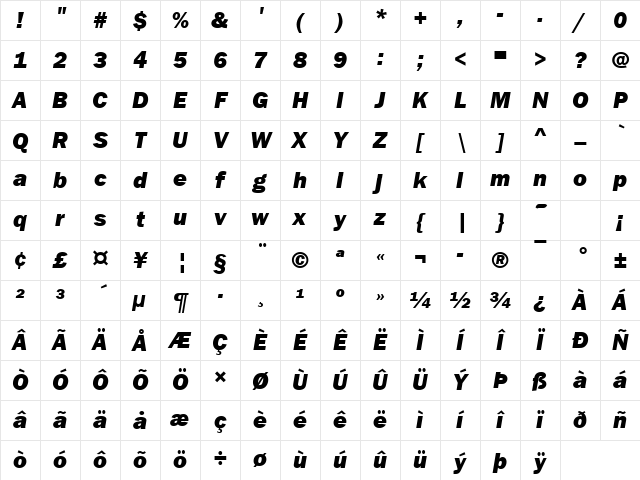
FranklinGotItcTHea Italic
Design Context for FranklinGotItcTHea
FranklinGotItcTHea is a composed and adaptable typeface that performs quietly and consistently across a wide range of design contexts. The slanted form adds forward momentum and visual energy.
Pro Tip: Use FranklinGotItcTHea for emphasis, pull quotes, and subheadings where its slanted energy can add rhythm to the layout.